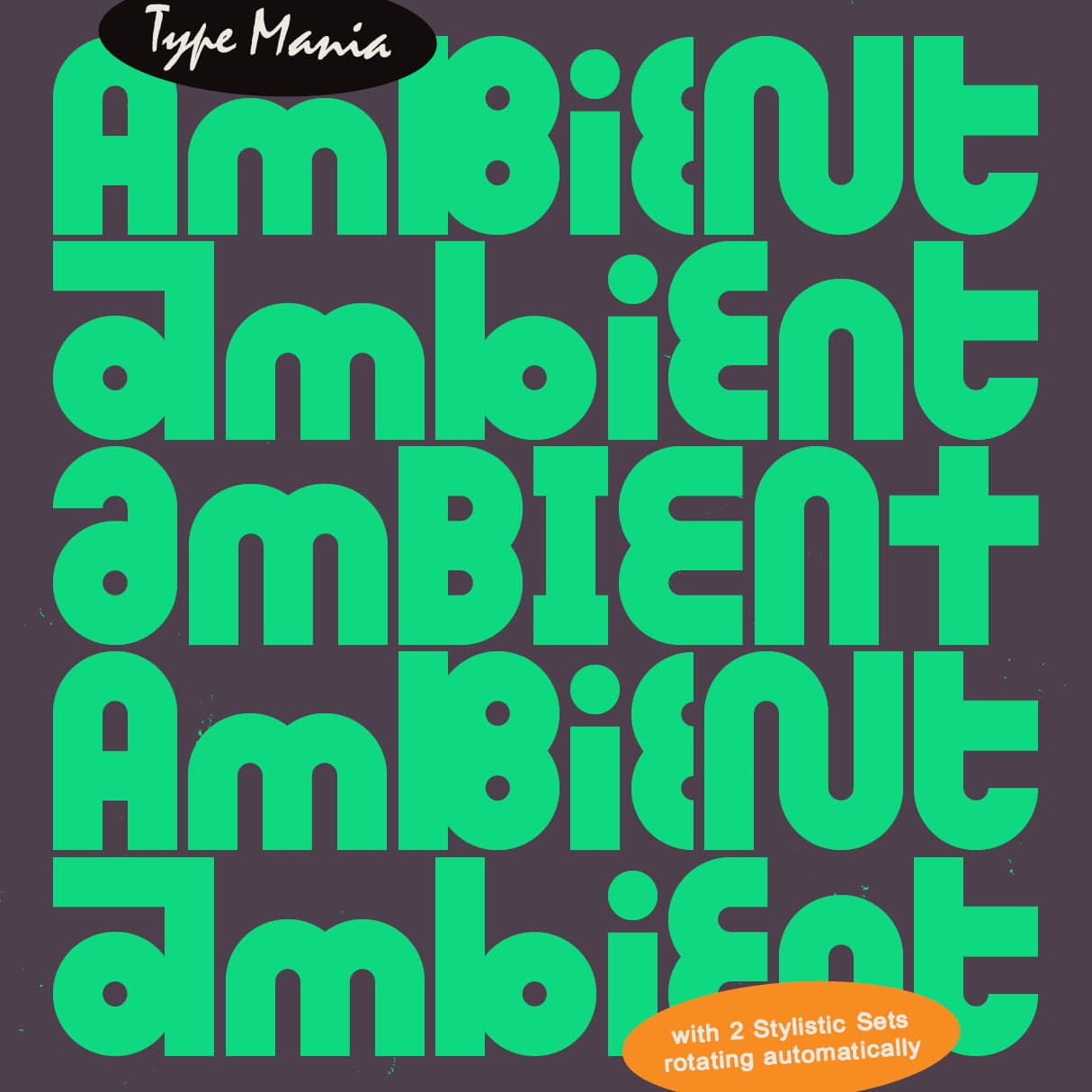
<p><strong>Ambient TM</strong> takes the rigid, hard-edge geometry and gives it life. Two stylistic sets rotate automatically as you type, shifting circles and squares into new alignments 👁️⃤</p><p></p><p><strong>Zip includes</strong></p><ul><li><p>OTF file</p></li><li><p>TTF file</p></li><li><p>WOFF2 file</p></li></ul><p></p><p><strong>OpenType features</strong></p><ul><li><p>2 stylistic sets</p></li><li><p>The font is programmed to automatically shift between the stylistic sets</p></li></ul><p></p><p><strong>Languages</strong></p><ul><li><p>Basic Latin</p></li><li><p>Western European</p></li><li><p>Euro</p></li><li><p>Central European</p></li><li><p>Pan African Latin</p></li></ul><p></p><p><em>Graphic Design is Easy (with Type Mania)®</em></p>